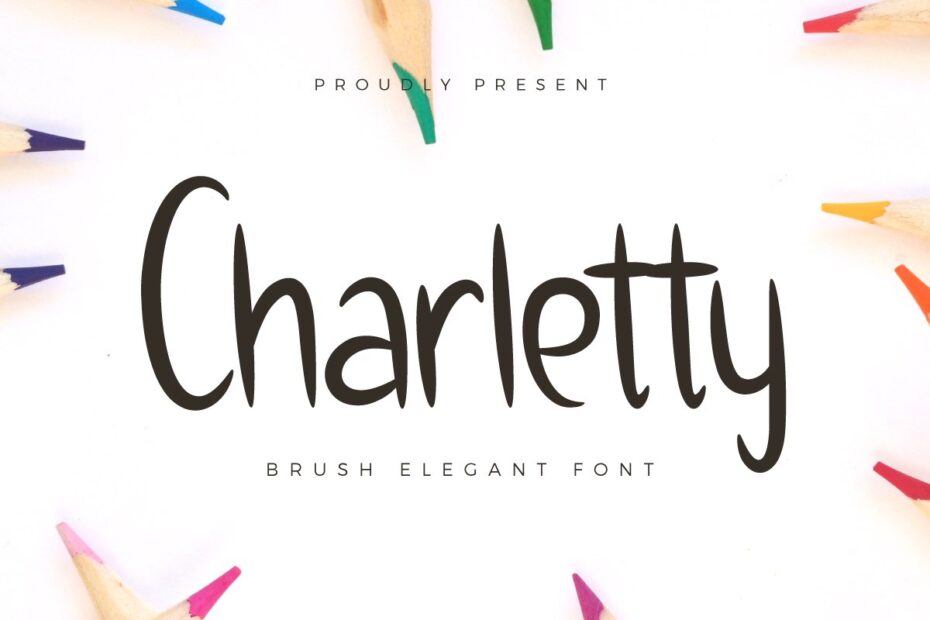
Discovering the Joy of Handwritten Typography
Have you ever found yourself scribbling down ideas in a notebook, only to realize that your handwritten notes have become a work of art in themselves? This is the magic of handwritten typography – a way to infuse your designs with personality and charm. For designers looking to add a touch of whimsy to their projects, there’s a new font that’s sure to become a favorite: Charletty Font.
This fun and fresh handwritten font is the perfect addition to any designer’s toolkit. Crafted as a sans serif, Charletty Font is as legible as it is appealing, making it a valuable asset for designers looking to add a unique touch to their work. Whether you’re creating a brand identity, a marketing campaign, or simply a social media post, Charletty Font is sure to bring a carefree charm to your designs.
Charletty Font Key Features
- Font Family: Charletty is a modern, elegant script font designed for various applications.
- Unique Characteristics: Charletty features a unique, flowing script design with a mix of modern and elegant elements, making it perfect for creating visually appealing and sophisticated designs.
- Languages Support: Charletty supports a wide range of languages, including Latin, Cyrillic, and Greek, making it a versatile font for international applications.
Charletty Font Review
First of all, I must say that I love the whimsical and elegant feel of Charletty Font. ✨ It’s perfect for designers looking for a sophisticated yet playful touch in their designs. The font’s flowing lines and classic style make it suitable for a wide range of applications, from invitations to editorial content.
The font’s versatility is one of its greatest strengths. ✨ It’s available in various weights and styles, allowing designers to experiment with different moods and atmospheres. The font also supports a range of languages, making it a great option for international projects.
- ⚠️ The font may not be the best choice for highly technical or technical content, as the lines can sometimes be too ornate.
- ⚠️ The font may require some adjustments in terms of kerning and spacing to ensure proper readability.
Overall, I’m impressed with Charletty Font. It’s a beautiful and versatile font that can add a touch of elegance to any design. While it may have some limitations, these can be easily overcome with some design know-how. I would definitely recommend Charletty Font to designers looking for a unique and sophisticated typeface.
Common Use Cases for Charletty Font
Charletty Font is ideal for:
1. Creating elegant and sophisticated designs.
2. Adding a touch of whimsy and playfulness to your design.